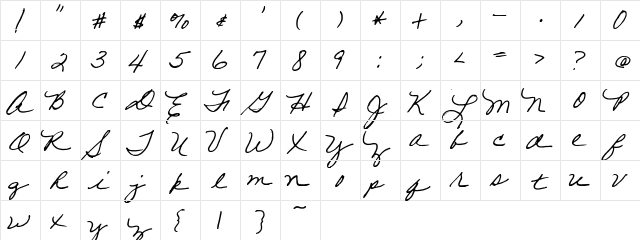
Lisa Script Regular
Design Context for Lisa Script Typeface
Lisa Script brings a calligraphic fluidity to the page — its connecting strokes and expressive curves give it an unmistakably human quality.
Font Pairing: Combine Lisa Script with a simple geometric sans for maximum contrast — the tension between flowing curves and clean structure is a classic typographic pairing.
Pro Tip: Pair Lisa Script with a clean sans-serif for supporting text. The contrast between fluid script and geometric structure creates an elegant typographic hierarchy.